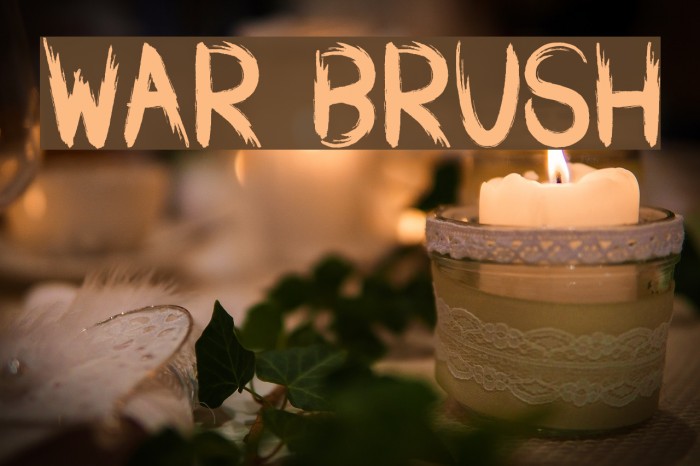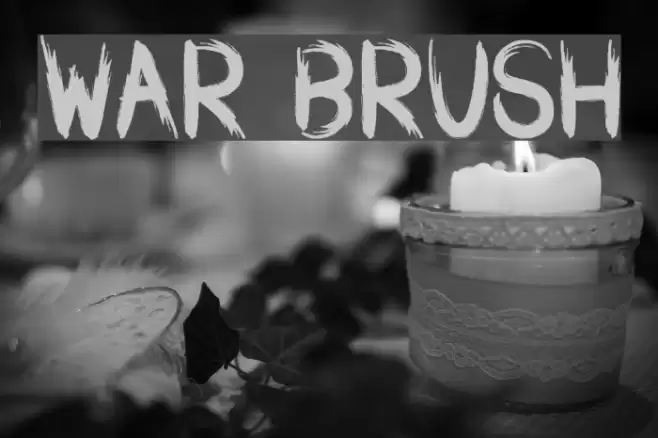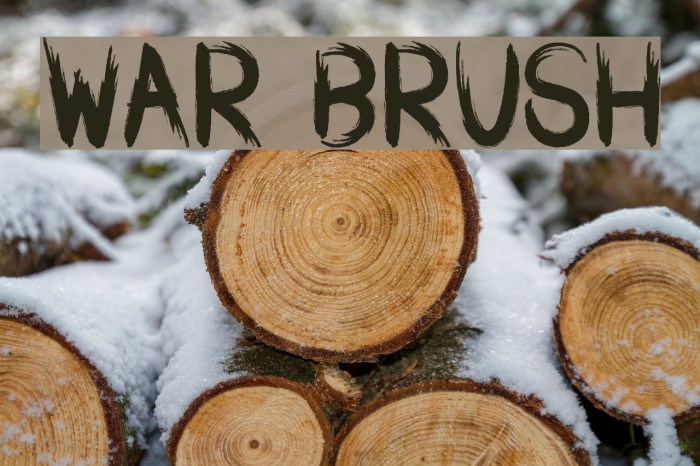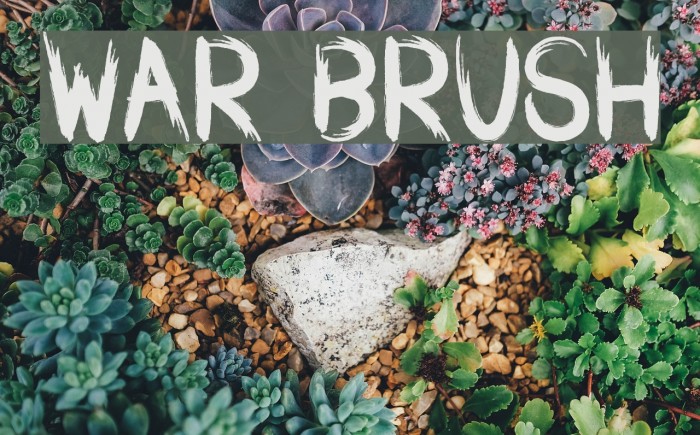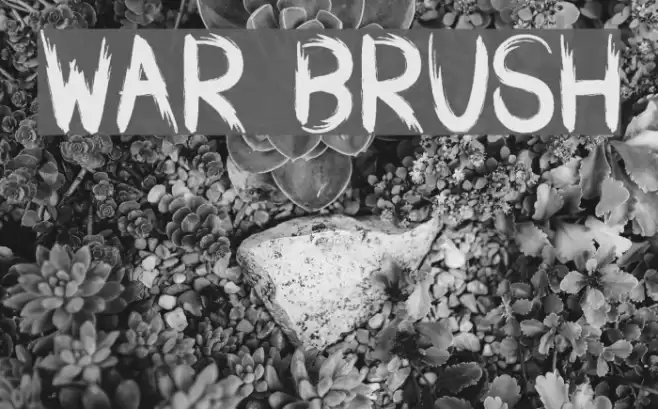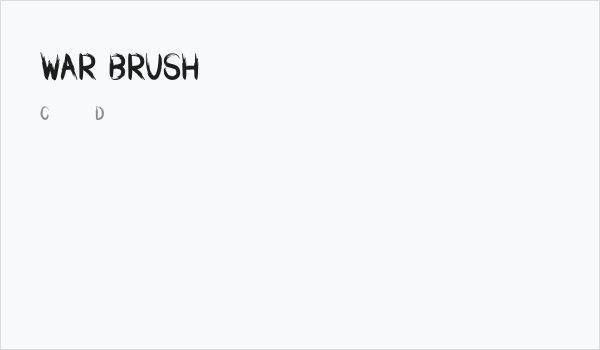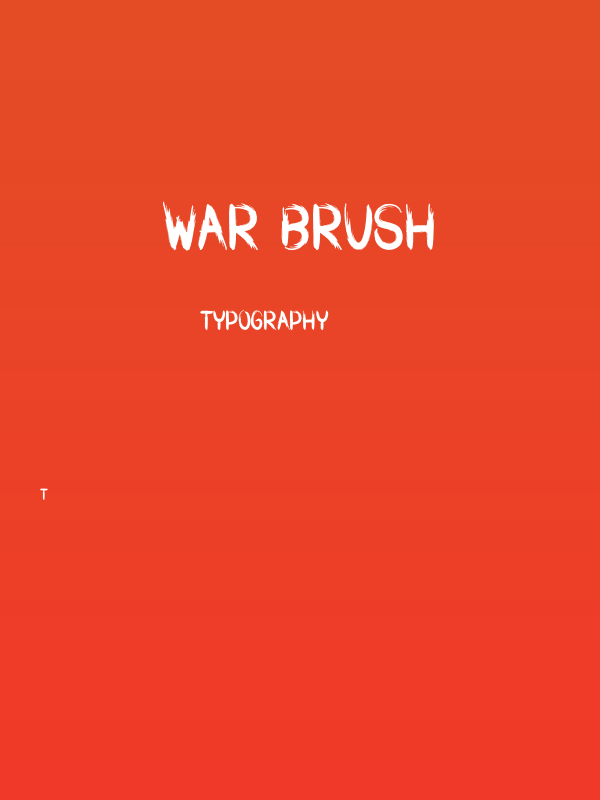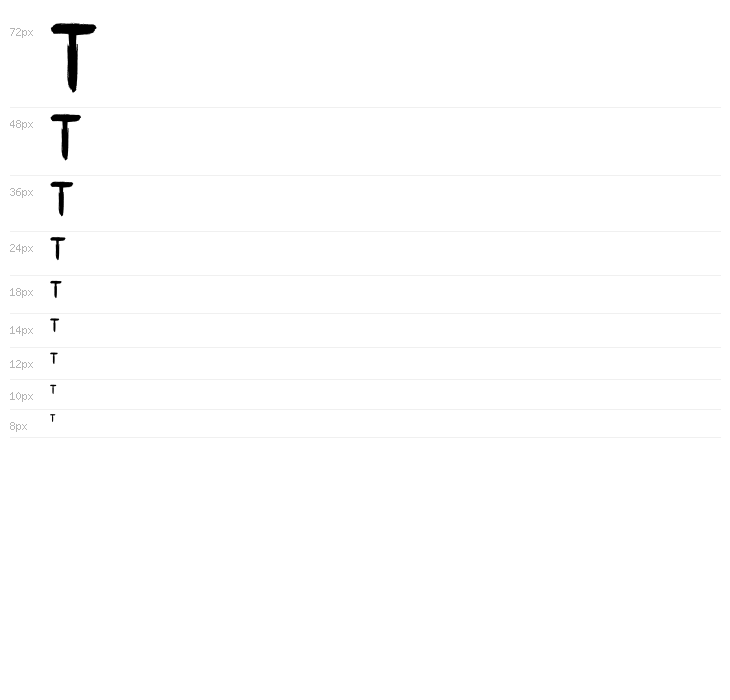
WAR BRUSH Font
WAR BRUSH Description
This font features a bold and dynamic brushstroke style, characterized by its rough, textured edges and energetic appearance. The letters exhibit a hand-painted aesthetic, with varying thicknesses that create a sense of movement and spontaneity. This design is reminiscent of graffiti or street art, making it ideal for projects that require a bold and expressive touch. The uppercase letters are particularly striking, with each character displaying unique brush details that enhance the overall visual impact.
| Proposed Projects | Ideal for posters, album covers, street art-inspired designs, and branding that requires a bold, artistic flair. |